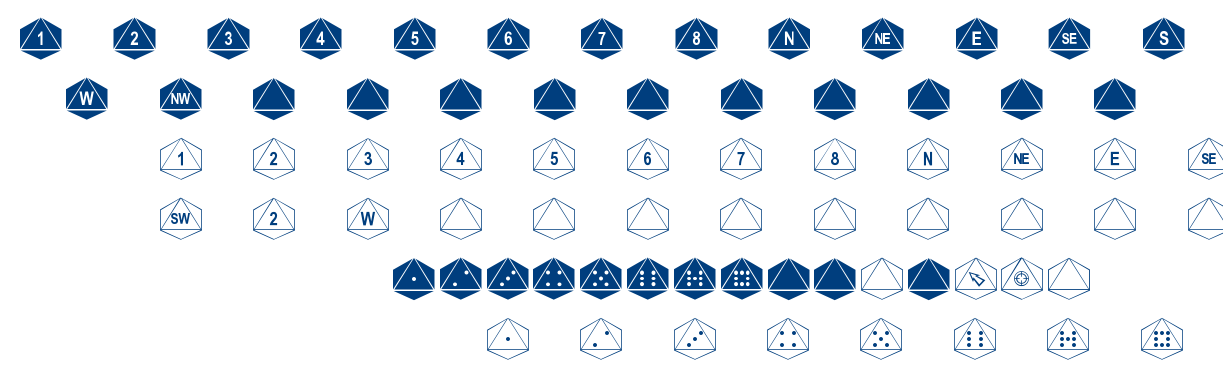
Tiny Small Medium Large Octohedron font Neale Davidson Website Octohedron.ttf Download 1131 downloads Freeware Category: Dingbats » Various TTF – Octoherdon d8 dings results in solid or outline. Includes pips, direction dice, and other gaming glyphs. Character Map specimen sheet